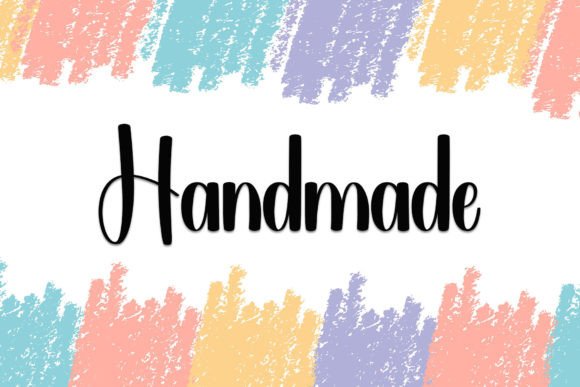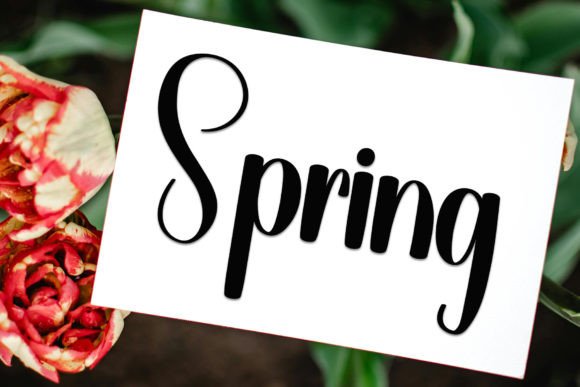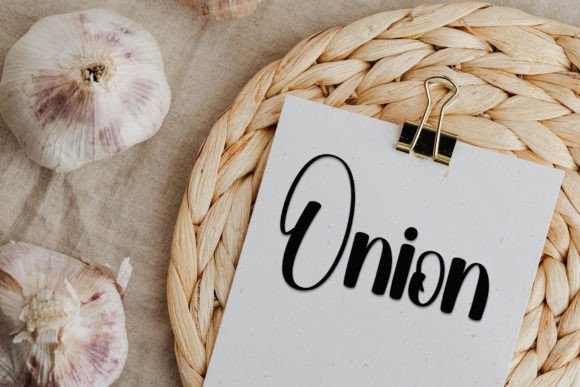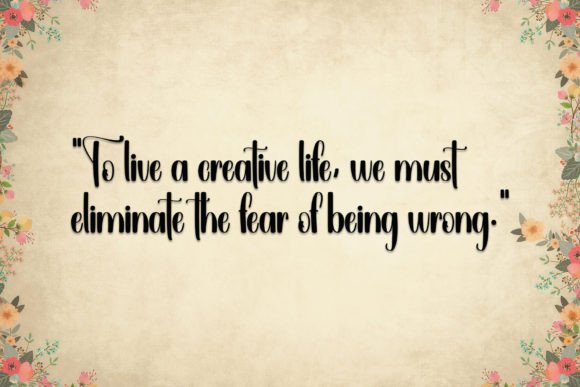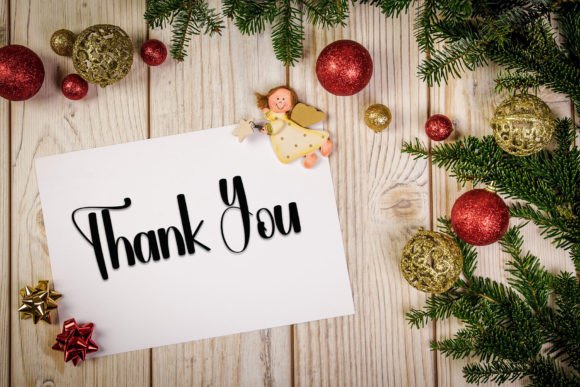
The Joy of Handwritten Typography: Display Font
Have you ever sat down with a blank piece of paper, a pen, and a burst of creativity? The possibilities are endless, and the sense of satisfaction is unbeatable. For designers, this feeling is a regular occurrence – and one of the most exciting moments is when they get to choose the perfect font to bring their ideas to life.
Enter the Display Font – a fun and versatile handwritten font that’s perfect for a wide range of creative pursuits. Whether you’re crafting, designing digital content, creating presentations, or making greeting cards, Display Font is the ideal choice. Its unique charm and character make it a valuable asset for designers, allowing them to add a personal touch to their work and connect with their audience on a deeper level.
Key Features of Display Font
- Font Size: Display Font is designed to be used at larger sizes, typically ranging from 24pt to 72pt, making it ideal for headlines, titles, and other display text.
- Unique Characteristics: Display Font features a distinctive, bold, and condensed design, with exaggerated stroke widths and a strong x-height, making it highly legible and attention-grabbing.
- Kerning and Ligatures: Display Font includes advanced kerning and ligature features, ensuring smooth text flow and optimal letter spacing.
Display Font Review
Display Font has some ✨ standout features that make it a great addition to any design project. The font’s bold, elegant lines and precise letterforms are perfect for creating a sense of sophistication and drama. It’s particularly well-suited for headings, titles, and other display typography where you want to make a big impact.
- ✨ Excellent legibility: Display Font is highly readable, even at large sizes.
- ✨ Unique character: The font’s distinctive style sets it apart from more common serif fonts.
- ✨ Versatile: Display Font works well in both print and digital applications.
However, there are some ⚠️ limitations to consider. The font may not be the best choice for body text, as it can be a bit too bold and overpowering. Additionally, some of the letterforms may be a bit too ornate for certain designs.
- ⚠️ May be too bold for body text.
- ⚠️ Some letterforms may be too ornate.
Overall, Display Font is a great choice for designers who want to add a touch of elegance and sophistication to their projects. While it may not be suitable for every design, it’s definitely a valuable addition to any font library.